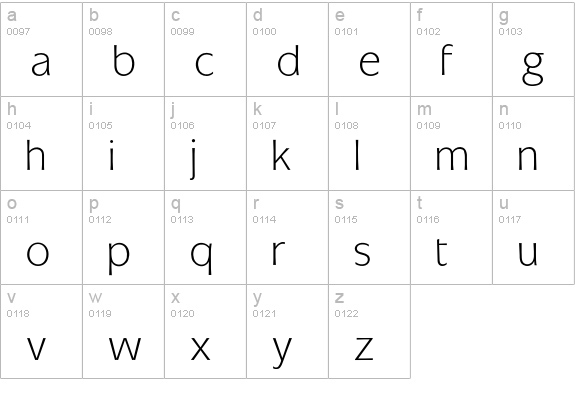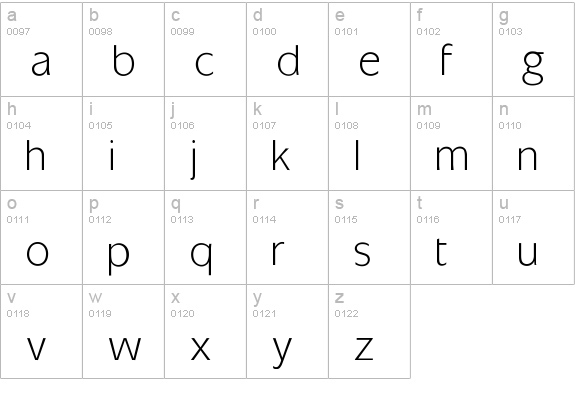
MixageBook Font Details
Introducing MixageBook font, a versatile and elegant typeface designed to elevate your projects with a touch of sophistication and style. This unique font features a harmonious blend of classic and modern elements, making it perfect for a wide range of design applications. With its clean lines and distinctive letterforms, MixageBook font exudes a sense of sophistication and creativity that will make your designs stand out. Whether you're working on branding, packaging, posters, or any other project, this font is sure to make a lasting impression. Best of all, MixageBook font is available for free download at FontsMarket.com. Simply visit the website to access this stunning font and unleash your creativity without any cost. Don't miss out on the opportunity to add this versatile and stylish typeface to your font collection today!